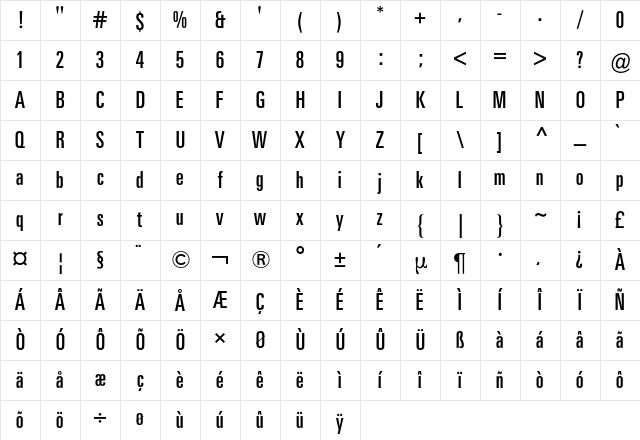
Univers Ultra Condensed BQ Regular
Univers Ultra Condensed BQ Family
Univers Ultra Condensed BQ Regular
Design Context for Univers Ultra Condensed BQ
Univers Ultra Condensed BQ is a composed and adaptable typeface that performs quietly and consistently across a wide range of design contexts. Its narrow stance lets it pack a punch even in space-constrained designs.